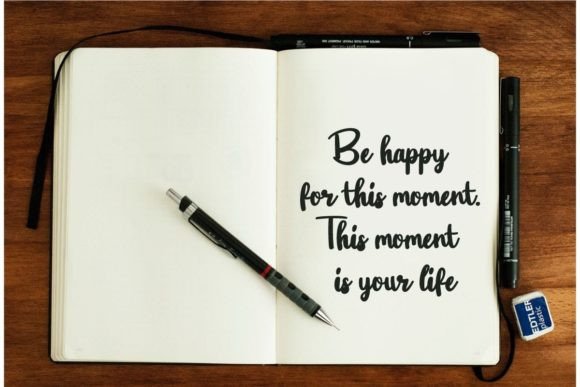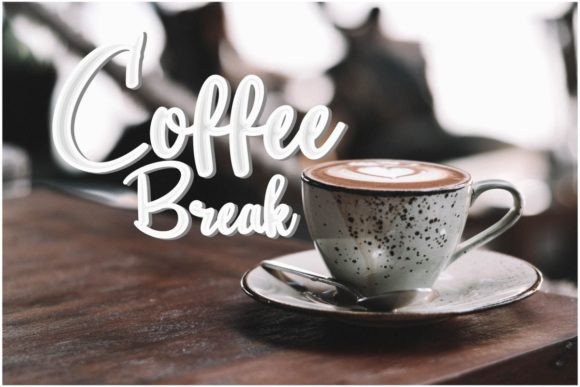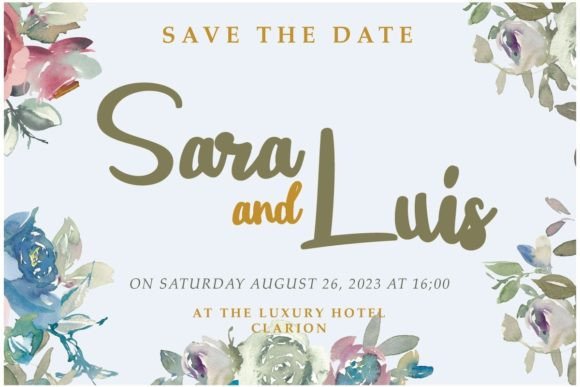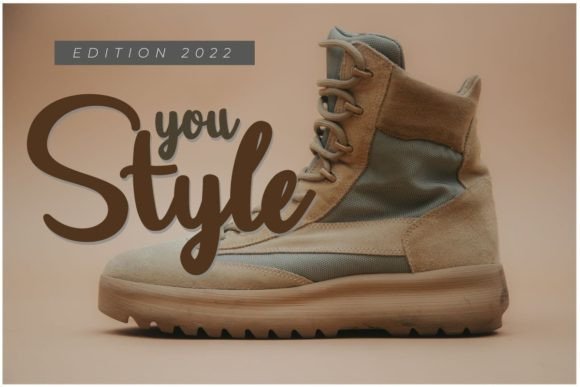
Gillian Font
About Gillian Font
Gillian is an exquisite handwritten font that adds a touch of elegance to a myriad of design projects. Its aesthetic appeal makes it a perfect choice for various applications, ranging from wall displays to wedding invitations, and from social media post logos to product packaging. With its graceful and artistic strokes, Gillian brings a unique charm to any creative endeavor.
Imagine the allure of Gillian gracing your wedding invitations, setting the tone for a romantic and memorable celebration. The font’s beauty is not limited to weddings – it seamlessly enhances the visual impact of social media post logos, catching the eye and leaving a lasting impression on your audience.
In the realm of advertising, Gillian stands out, adding a sophisticated flair to advertisements and product designs. Its versatility extends to labels and photography, where it effortlessly integrates into the visual narrative, elevating the overall aesthetic. The subtlety of Gillian also makes it an excellent choice for watermarks, subtly branding your work with a touch of class.
Invitations and stationery take on a whole new level of refinement with Gillian. Whether it’s a formal event or a casual gathering, this font imparts a sense of style that leaves a lasting impression. The fluidity of Gillian’s handwritten style adds a personal touch to your communication, making it more engaging and memorable.
Product packaging becomes an art form with Gillian, as it transforms the ordinary into the extraordinary. The font’s ability to convey both sophistication and warmth makes it a valuable asset for designers looking to enhance the visual identity of a product.
In essence, Gillian is more than just a font; it’s a design element that enhances the overall aesthetic of any project. Its impressive typography and timeless beauty make it a go-to choice for designers across various industries. Whether you’re working on wall displays, wedding invitations, social media posts, advertisements, product packaging, or any other creative venture, Gillian brings a touch of refinement that elevates your work to new heights.